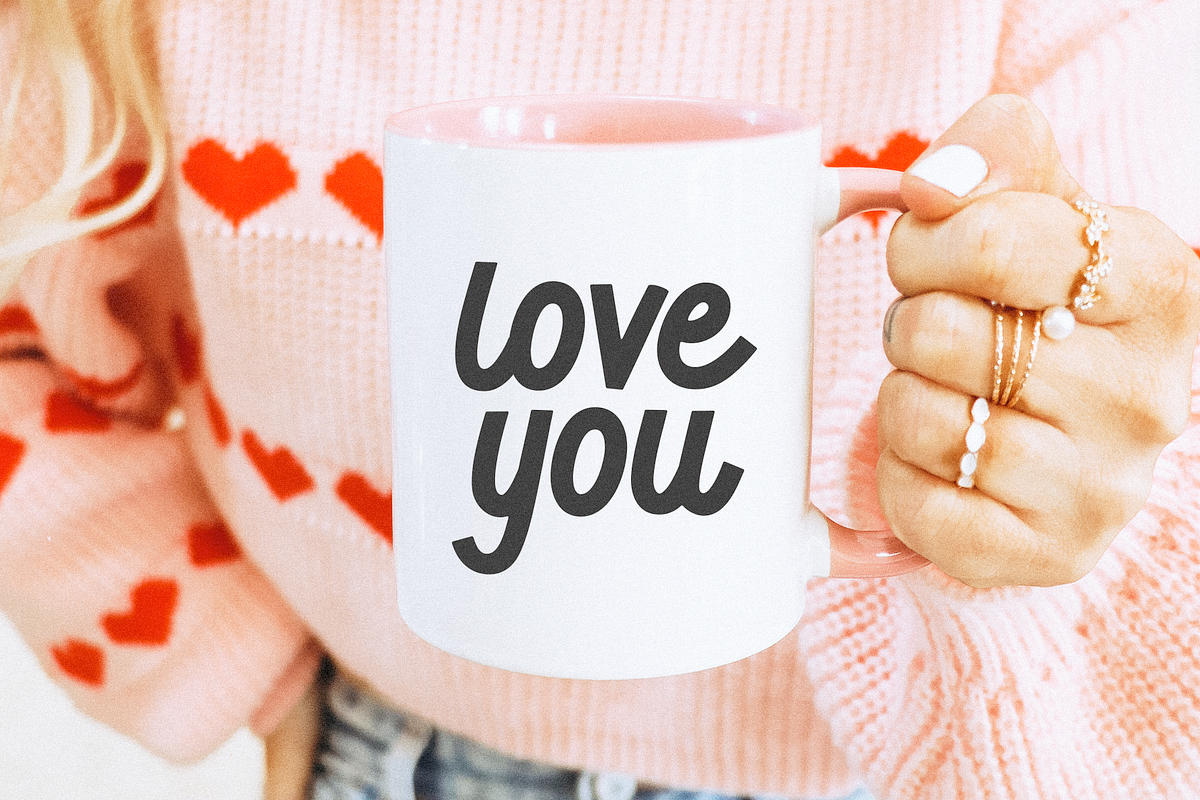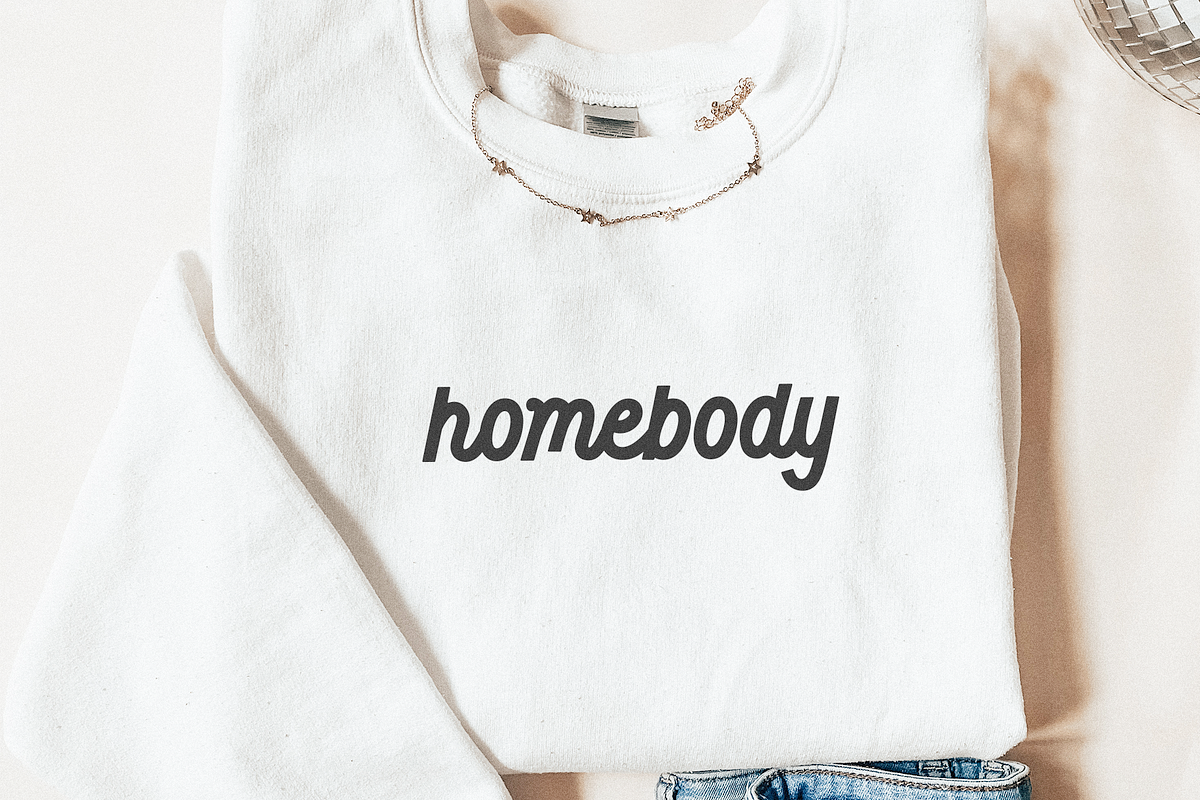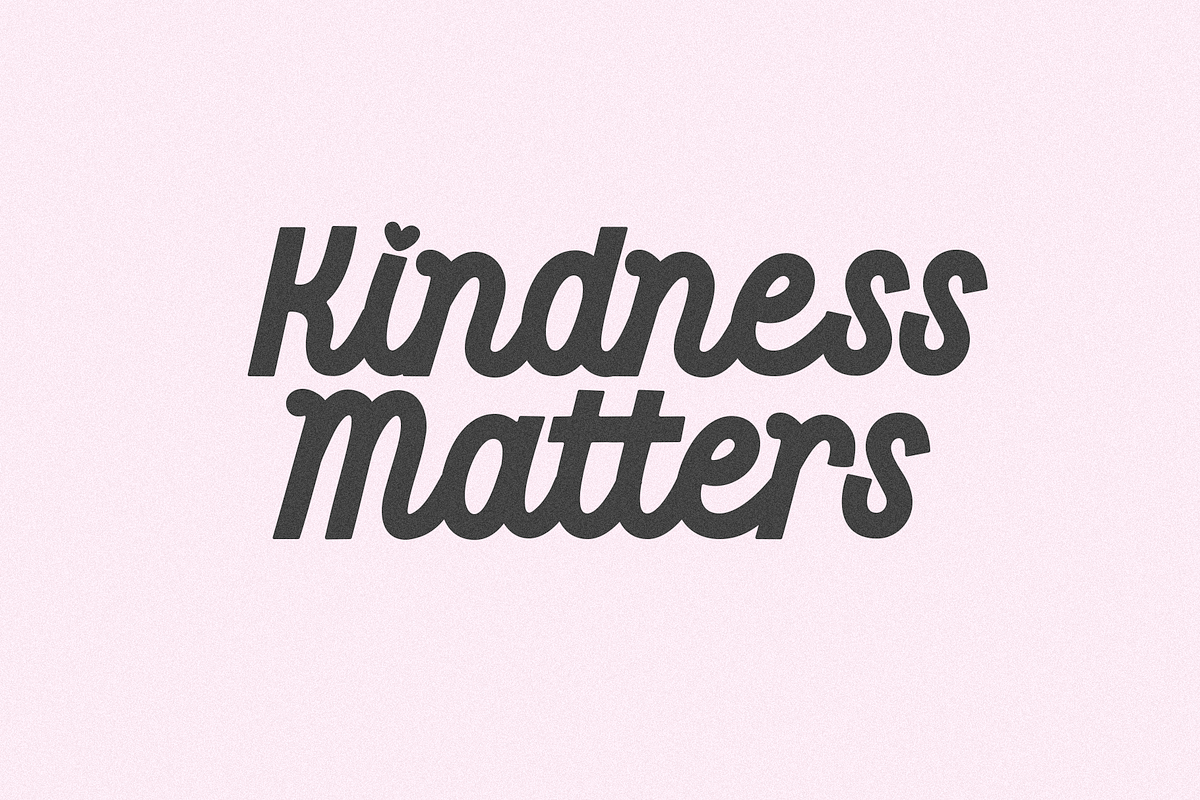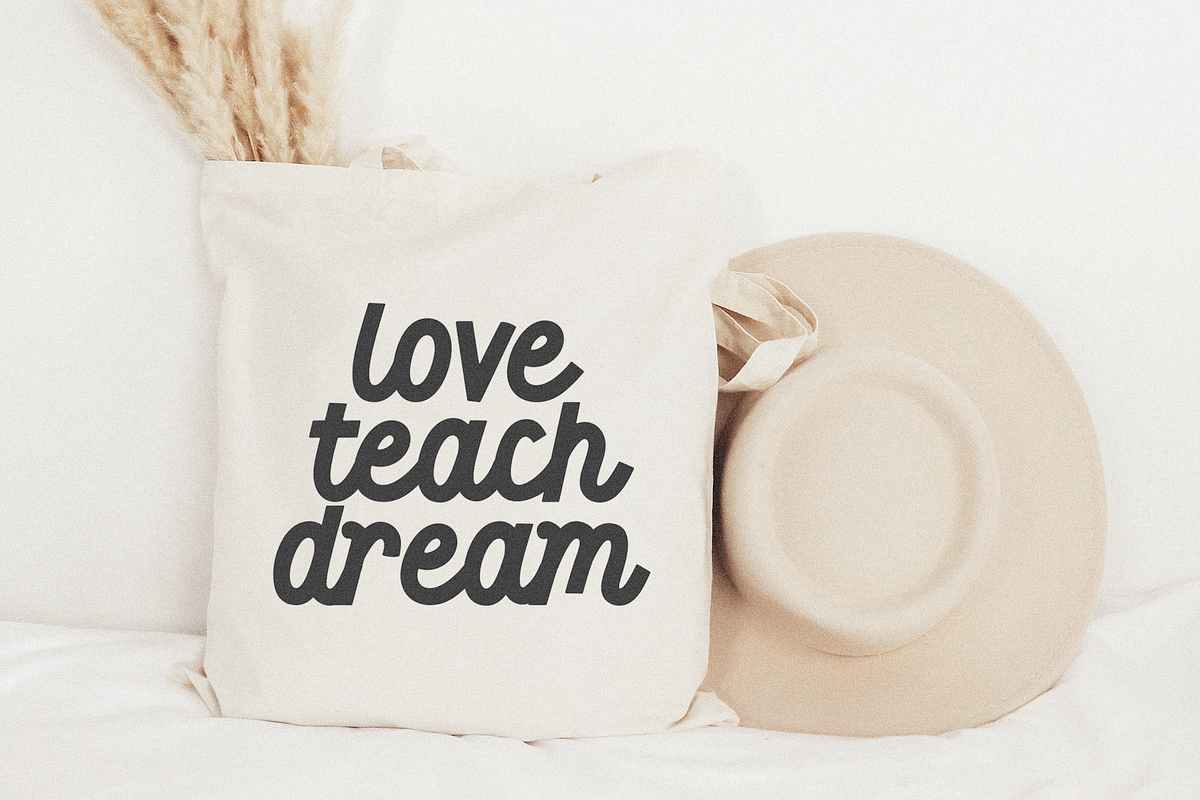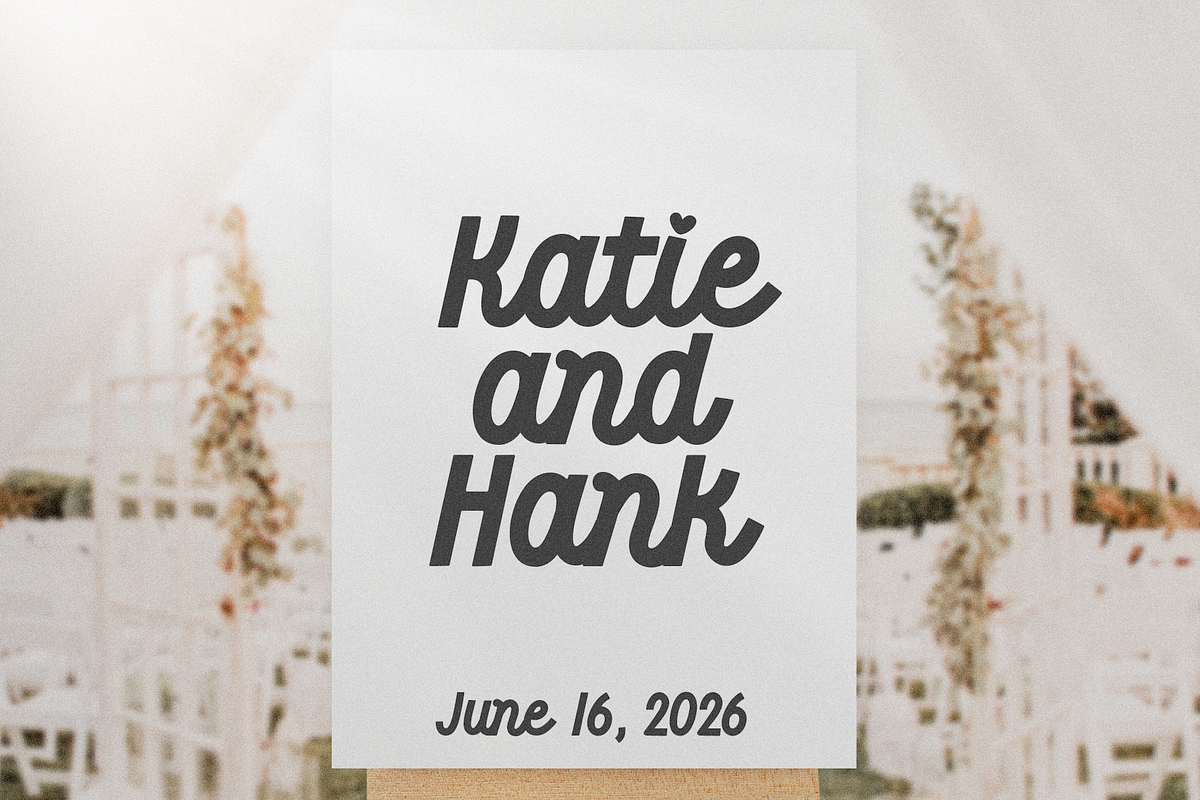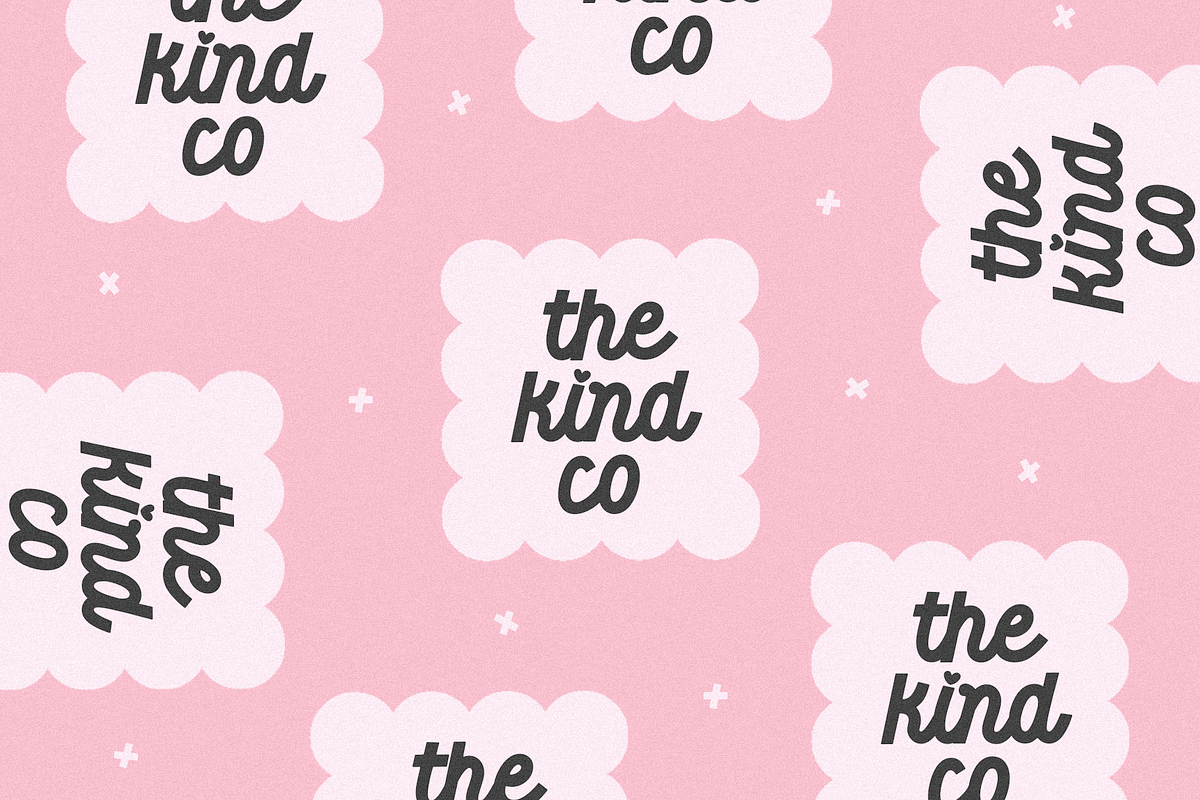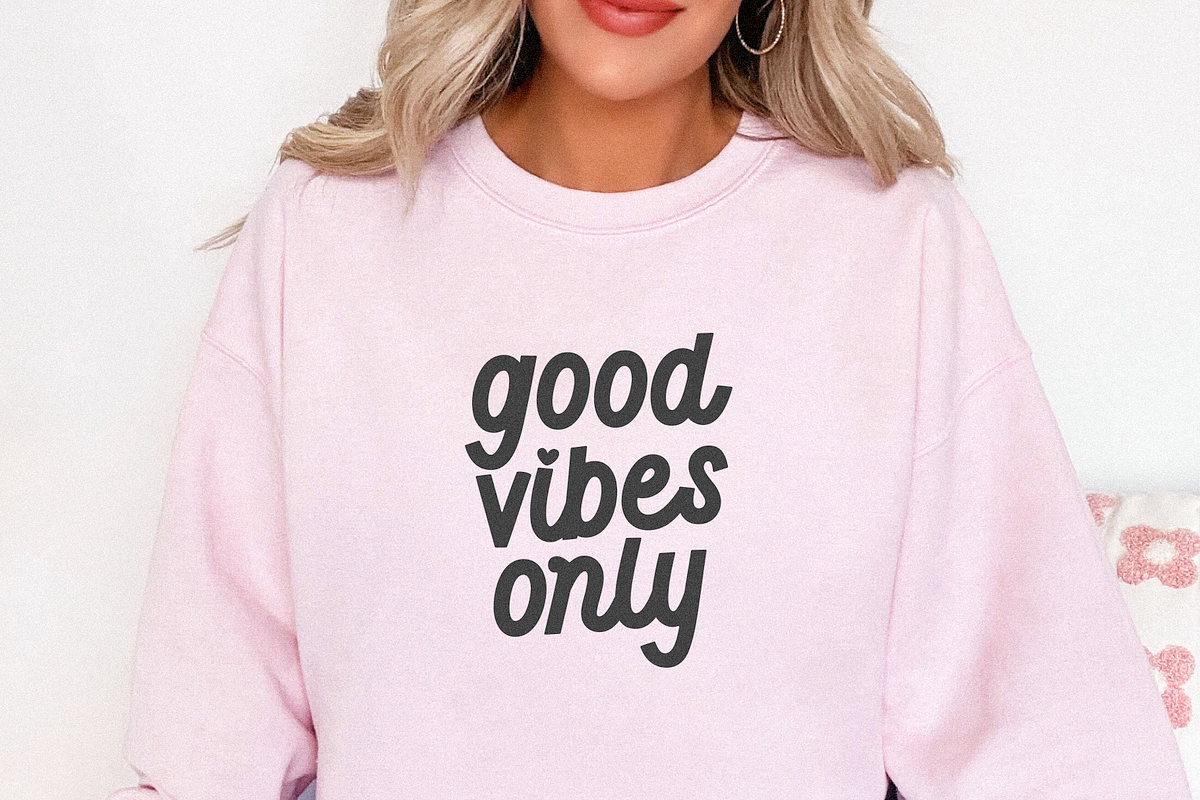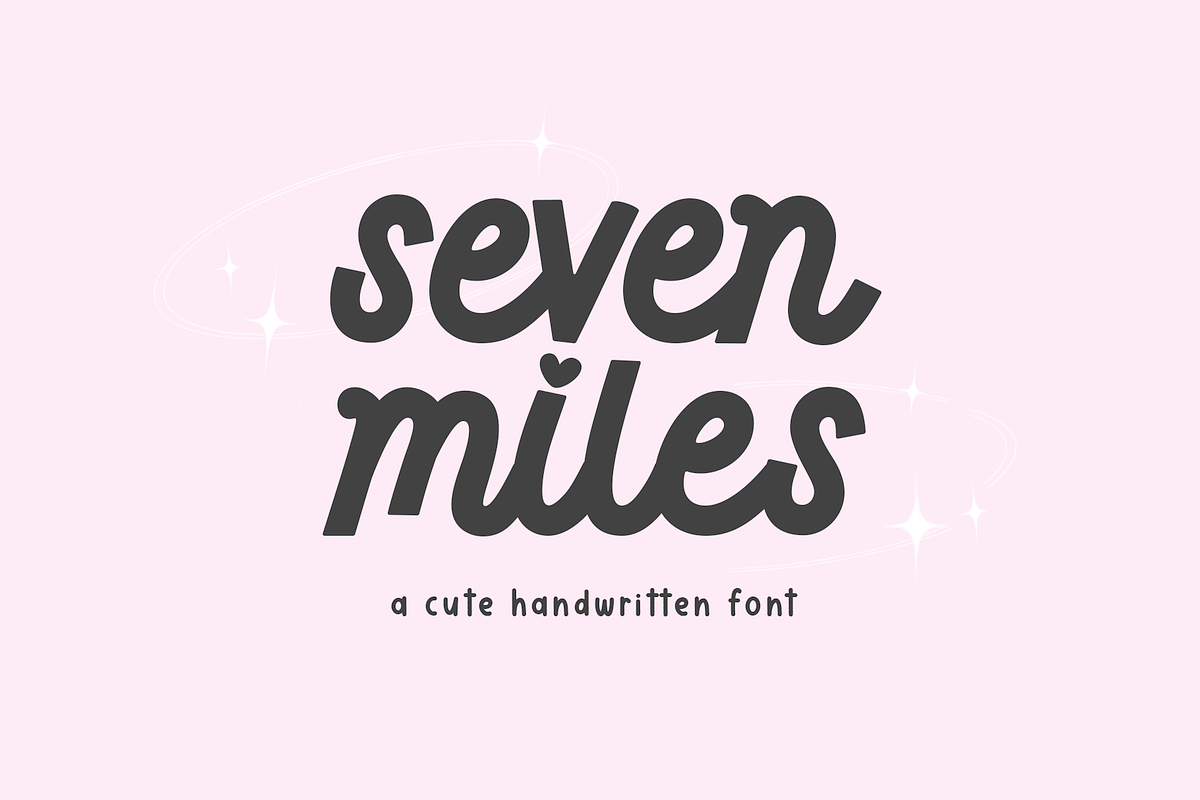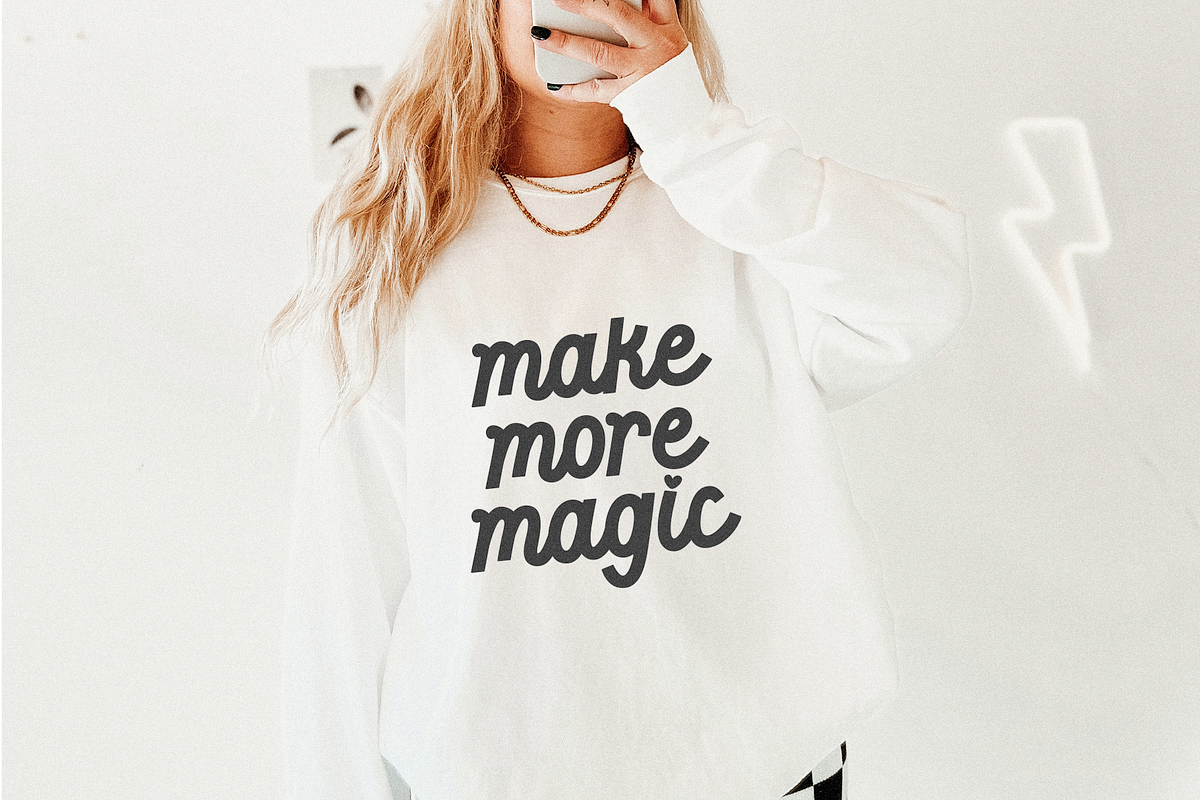
Seven Miles | Cute Font
Seven Miles is a cute semi-script font.
This font is perfect for logos, advertisements, shirts, stickers, crafts, teachers, goodnotes, planners, signs, social media and more!